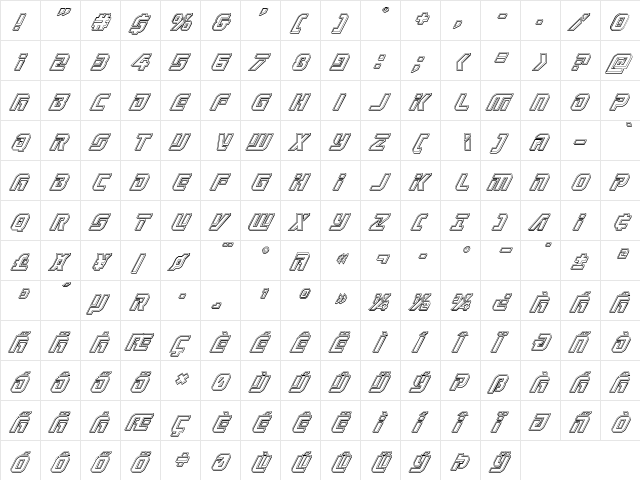
Legio Sabina Engraved Italic Italic
Design Context for Legio Sabina Engraved Italic Typeface
Legio Sabina Engraved Italic brings ornamental detail and strong personality to headlines and identities, where visual impact matters more than quiet functionality. The slanted form adds forward momentum and visual energy.
Font Pairing: Pair with a clean neutral sans-serif for body copy to let Legio Sabina Engraved Italic's character lead without overwhelming the composition.
Pro Tip: Treat Legio Sabina Engraved Italic as the centrepiece of your typographic hierarchy. One strong heading set in a decorative face can carry an entire layout.